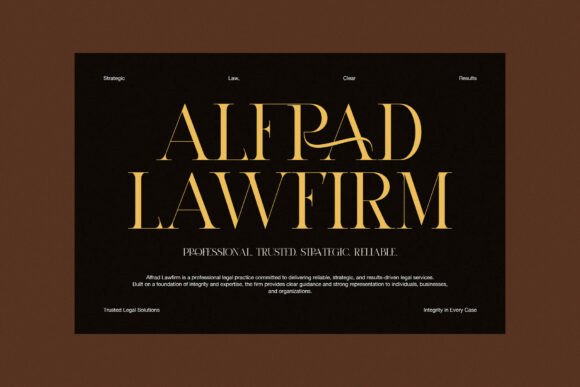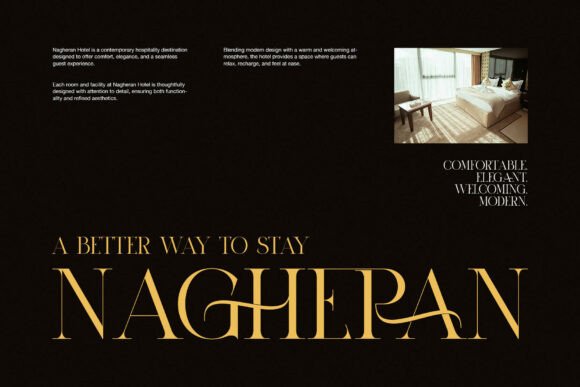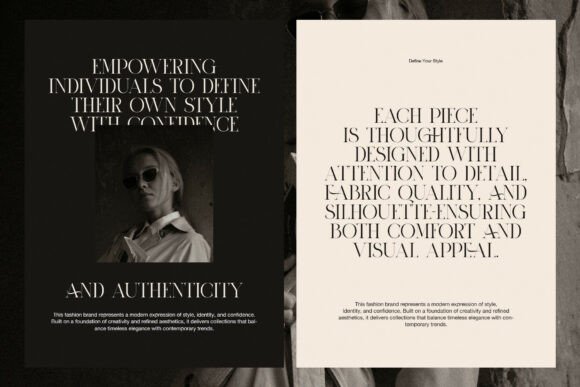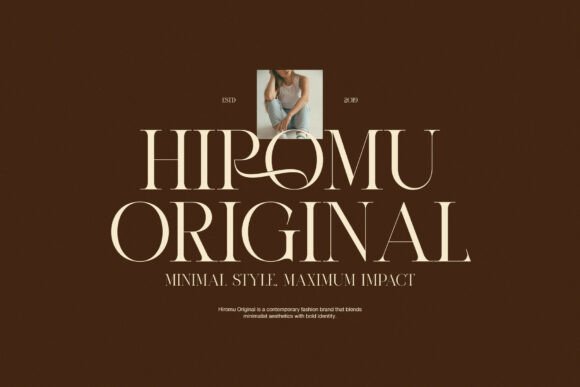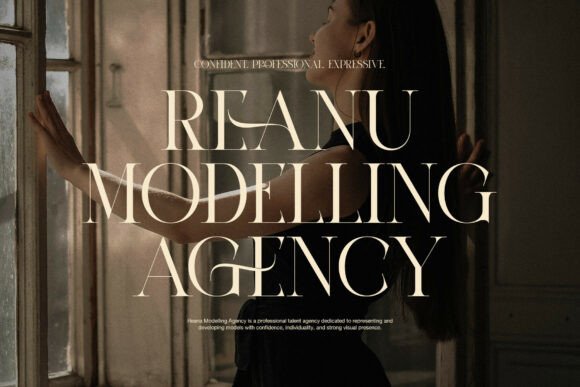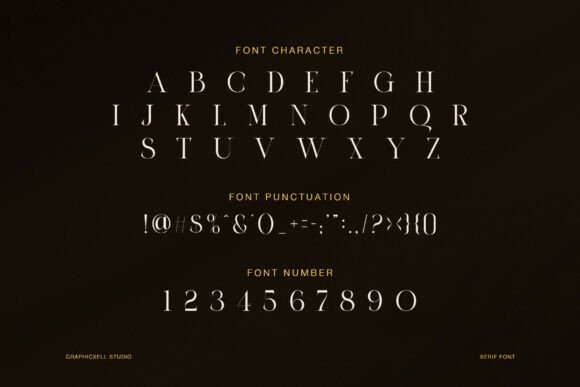
The Power of Brand Font: Elevate Your Design with a Refined Serif Typeface
As a designer, you understand the importance of typography in creating a lasting impression. The right font can elevate your brand, convey your message, and leave a lasting impact on your audience. In this article, we’ll explore the world of Brand Font, a refined serif typeface that’s perfect for designers who need a bold, graceful, and high-end look.
What is Brand Font?
Brand Font is a carefully crafted serif typeface designed to help you create stunning visual statements. Its strong shape and elegant letterforms make it an ideal choice for designers who want to add a touch of sophistication to their work. With its thin hairlines, wide stems, sharp serifs, and smooth curves, Brand Font exudes elegance, modernity, and expressiveness.
Key Features of Brand Font
- Thin Hairlines: Brand Font’s hairlines are delicate and refined, adding a touch of sophistication to your design.
- Wide Stems: The font’s wide stems provide a strong foundation for the letterforms, making them perfect for headlines and titles.
- Sharp Serifs: The sharp serifs add a touch of elegance and refinement to the font, making it perfect for high-end designs.
- Smooth Curves: The smooth curves of Brand Font create a sense of fluidity and movement, adding a dynamic touch to your design.
Why Choose Brand Font?
So, why should you choose Brand Font for your next design project? Here are just a few reasons:
- Elegance: Brand Font exudes elegance and sophistication, making it perfect for high-end designs.
- Versatility: The font is versatile and can be used for a wide range of design projects, from luxury brands to editorial design.
- Expressiveness: Brand Font is expressive and dynamic, allowing you to convey your message with clarity and style.
- Readability: The font is highly readable, making it perfect for body text and headlines.
How to Use Brand Font in Your Design
Using Brand Font in your design is easy. Here are a few tips to get you started:
- Pair it with a sans-serif font: Pair Brand Font with a sans-serif font to create a striking contrast and add visual interest to your design.
- Use it for headlines: Brand Font is perfect for headlines and titles. Use it to create a bold and eye-catching statement.
- Experiment with font sizes: Experiment with different font sizes to create a sense of hierarchy and add depth to your design.
- Add a pop of color: Add a pop of color to your design to make it stand out and create a lasting impression.
In conclusion, Brand Font is a refined serif typeface that’s perfect for designers who need a bold, graceful, and high-end look. With its strong shape, elegant letterforms, and versatile design, Brand Font is an ideal choice for a wide range of design projects. Whether you’re a seasoned designer or just starting out, Brand Font is a great addition to your typography toolkit.